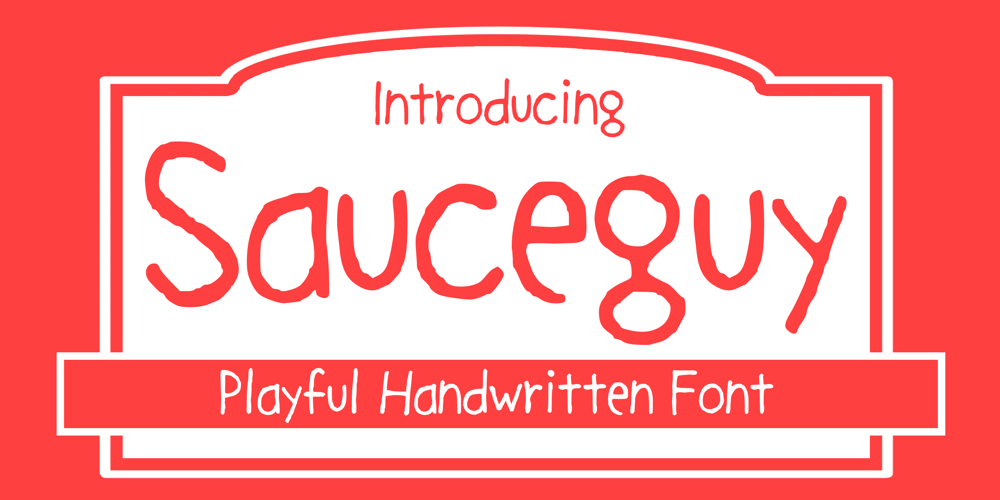
Sauceguy Font Family was designed by Gabriel Valentinus and published by Mvmet. Sauceguy contains 1 styles and family package options. Sauceguy is playful handmade font. You can use it for anything ranging from t-shirts, book designs, and greeting cards to stickers and posters, packaging designs or anything that needs a casual touch, it will be your perfect font to pick. Fall in love with its incredibly versatile style, and use it to create lovely designs!